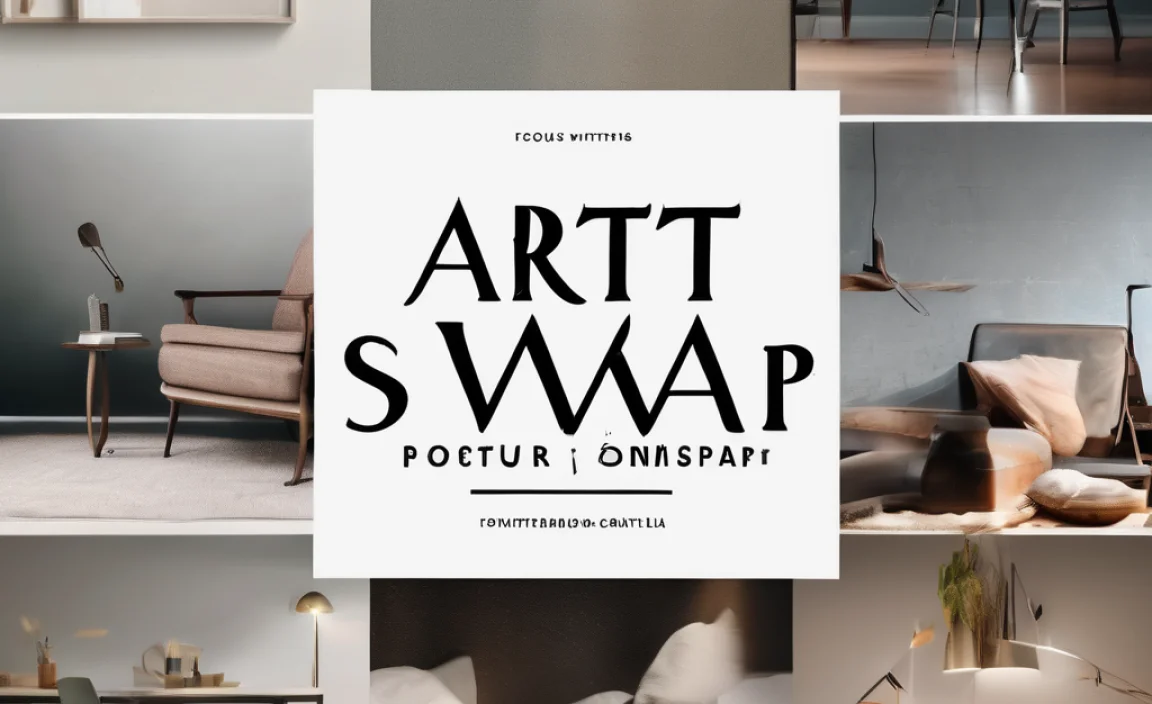
Have you ever seen a book with fun, exciting letters? That’s the magic of fonts! Fonts are like the handwriting of your computer. They make words look different and special. But what happens if you change them? Welcome to the exciting Art Of Font Swap! Swapping fonts can turn plain words into something eye-catching. Imagine reading your favorite comic in a boring font. It wouldn’t be as fun, right?
Let’s explore the Art Of Font Swap together. We’ll discover how fonts can change the way things look. It’s like wearing a new outfit! This journey will show you why fonts matter and how they can make reading more fun.
Key Takeaways
- Fonts change how words feel and look.
- Art Of Font Swap makes reading exciting and fun.
- Different fonts suit different purposes and moods.
- Swapping fonts can improve or ruin a message.
- Choosing the right font is an important skill.
Understanding The Art Of Font Swap
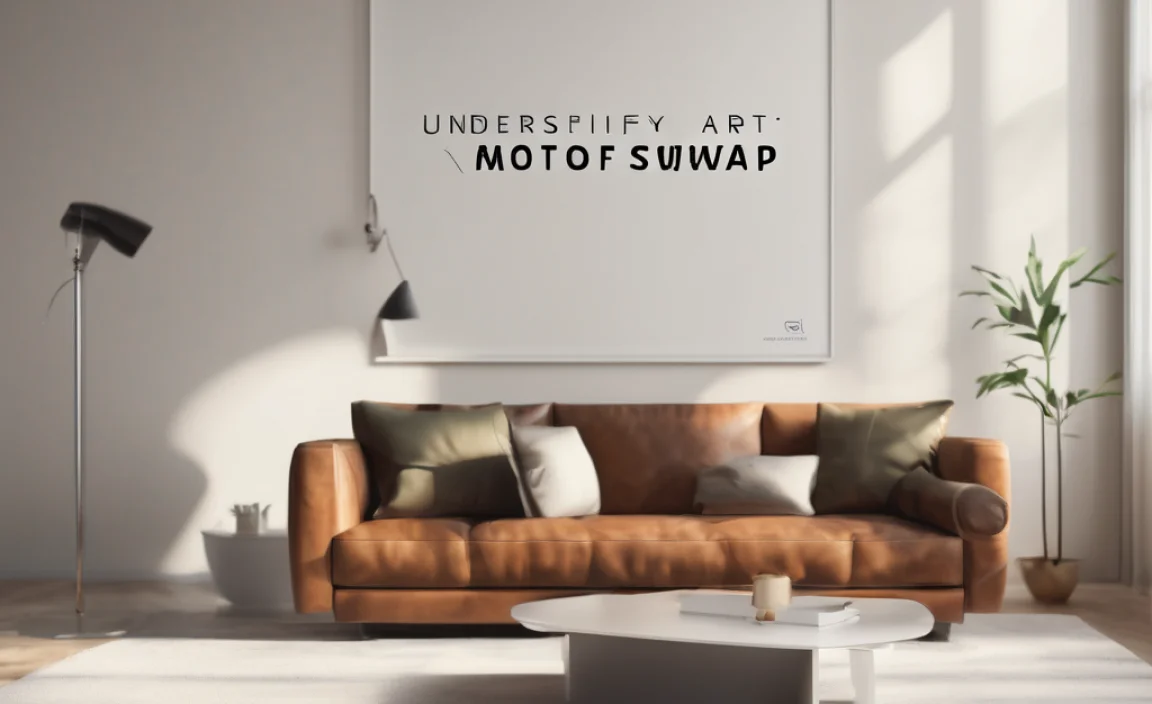
Fonts are like clothes for your words. Just like you choose what to wear, you can choose the font for your text. Some fonts are fancy, while others are simple. The Art Of Font Swap allows you to pick the right font for the right occasion. Imagine writing a party invitation. Would it look better in a fun font or a boring one? Most likely, a fun font will make people excited to attend your party!
- Fonts can be playful or serious.
- Right font enhances message clarity.
- Wrong font can confuse readers.
- Color and size also affect font appeal.
- Fonts can express emotions and tone.
- Font choice impacts readability.
- Fonts have different personalities.
The Art Of Font Swap is more than just picking a different style. It’s about matching the font to the message you want to send. For example, if you’re sending a letter to your grandma, a warm and friendly font might be best. But for a school project, a clear and serious font could work better. It’s fun to play with fonts and see how they change your message!
Fun Fact or Stats : There are over 20,000 fonts in the world today!
Why Fonts Matter
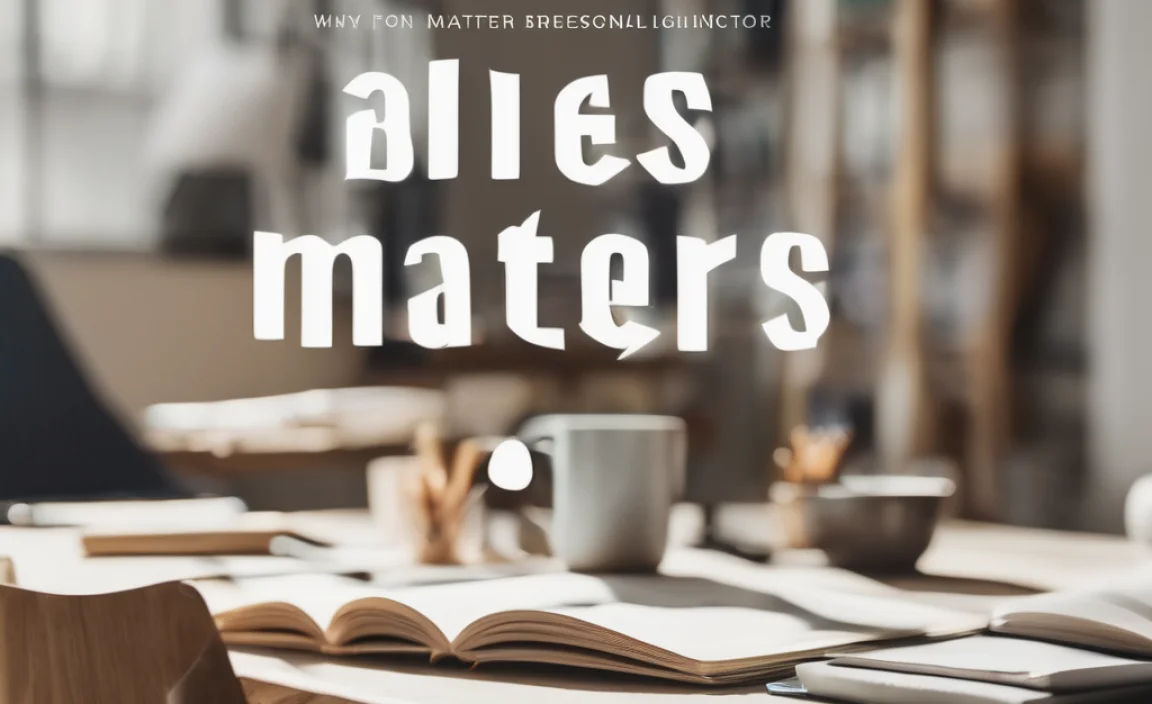
Fonts are important because they help us understand messages better. Imagine trying to read a book with letters that are too fancy. It can be hard to read, right? The Art Of Font Swap helps us choose readable fonts. This makes sure the message is clear. Have you noticed different books use different fonts? That’s because each book wants to give a certain feeling.
- Fonts add personality to text.
- Clear fonts improve reading speed.
- Right fonts make learning easier.
- Neat fonts fit formal documents.
- Creative fonts enhance art projects.
- Bigger fonts help younger readers.
- Font choice affects memory recall.
Choosing the right font is like choosing the right shoes. If you’re running, you need good sneakers. If you’re dancing, you might want sparkly shoes. The same goes for fonts. Picking the right one makes your message stand out. Whether you’re writing a story or making a card, the right font can help your audience understand and enjoy your work.
Fun Fact or Stats : Comic Sans is a popular font among kids!
The Impact Of Font Swaps
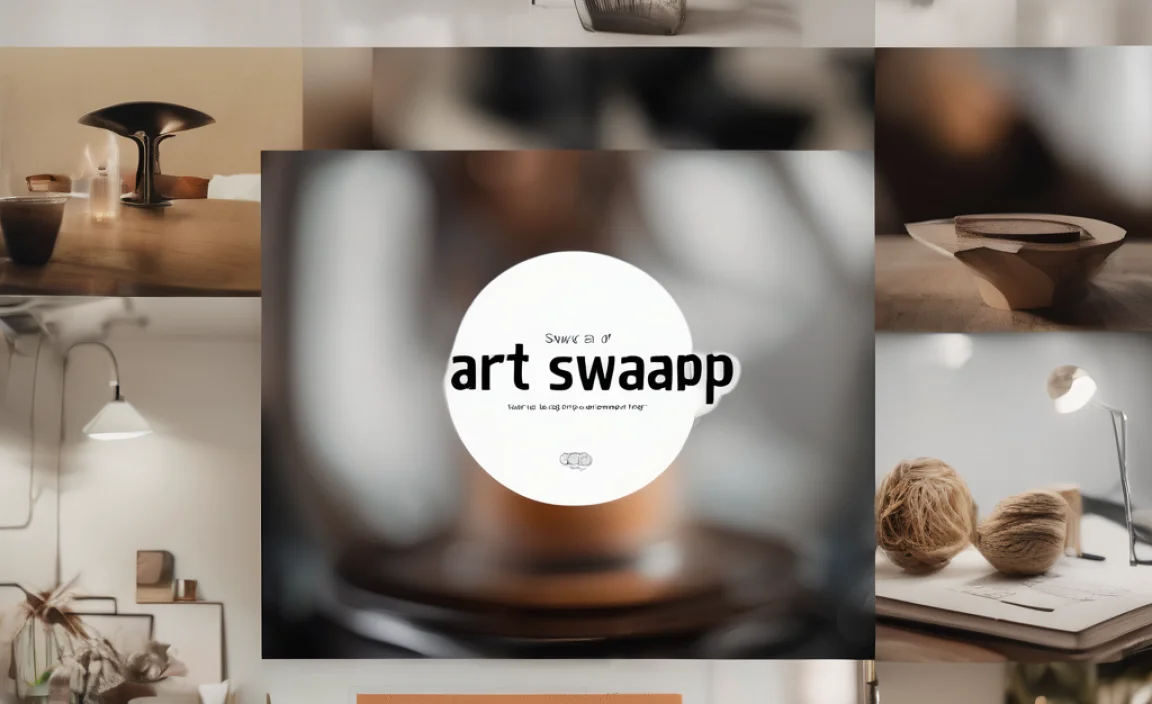
Changing fonts can change everything! The Art Of Font Swap lets you see how different fonts create different feelings. Imagine reading a scary story in a silly font. It might not be so scary anymore! Fonts can also make things look old-fashioned or modern. They can make your work look neat or messy, depending on what you choose.
- Font swaps change message mood.
- Bold fonts catch attention quickly.
- Italic fonts add emphasis to words.
- Different fonts suit different ages.
- Font colors affect mood perception.
- Fonts can convey luxury or simplicity.
- Font choice reflects creativity.
When you swap fonts, think about your message. Do you want it to be serious or fun? Do you want it to be easy to read or stylish? By swapping fonts, you can experiment and find out what works best. It’s a chance to play and discover how fonts work in different situations.
Fun Fact or Stats : Helvetica is one of the most used fonts worldwide!
Choosing The Right Font
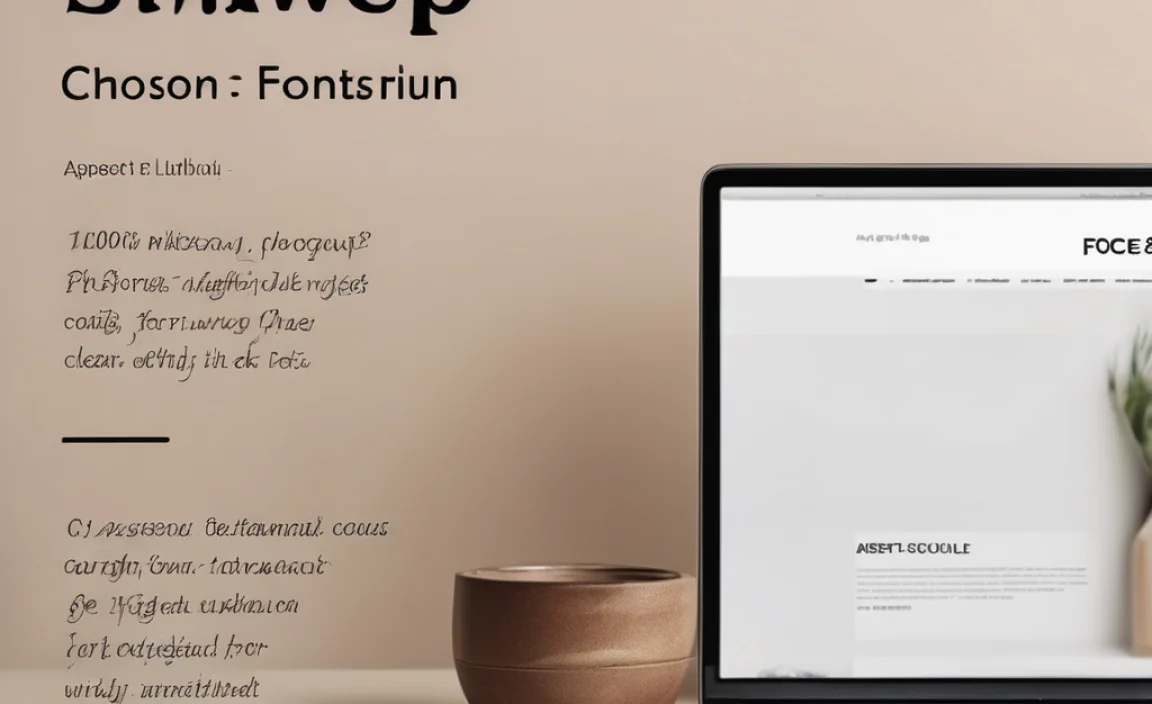
How do you know which font to choose? It’s like picking your favorite ice cream flavor. The Art Of Font Swap helps you find the perfect match. First, think about the purpose. Is it for school, fun, or a special occasion? Next, consider the audience. Are they kids, adults, or teachers? Different people like different fonts.
- Match fonts with the message.
- Consider the reader’s age.
- Think about the font’s feel.
- Use simple fonts for learning.
- Bold fonts for important text.
- Fancy fonts for invitations.
- Try different fonts for variety.
Choosing a font can be like a treasure hunt. You try different ones until you find the best fit. Sometimes, the font you pick can make your work look amazing. Other times, it might not match well. That’s okay! Keep trying, and you’ll get better at picking the right fonts for different projects.
Question: What are some popular fonts?
Answer: Popular fonts include Arial, Times New Roman, and Comic Sans. Each has a unique style. They are often used for different projects.
Question: How does the Art Of Font Swap help me?
Answer: It helps you choose fonts that make your work stand out. By understanding font swaps, you can better express your ideas and make them memorable.